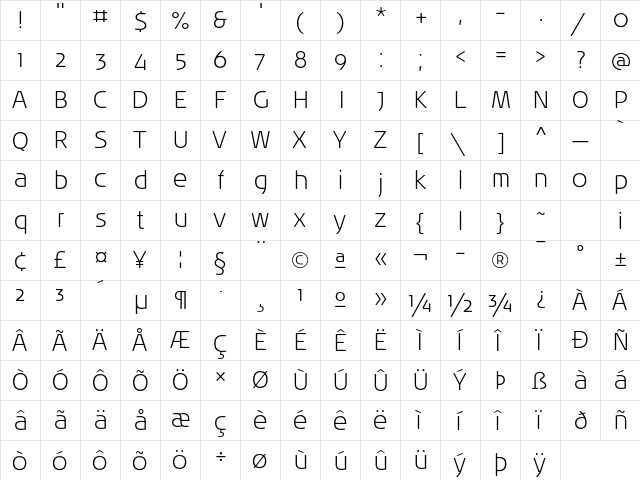
Noa LT Std Light
| Foundry | Linotype GmbH |
| Designer | Nina Lee Storm |
Design Context for Noa LT Std Typeface
Noa LT Std offers clean, dependable letterforms without strong stylistic allegiance, making it a practical choice for designers who need flexibility. The delicate stroke weight brings airiness and refinement to layouts.